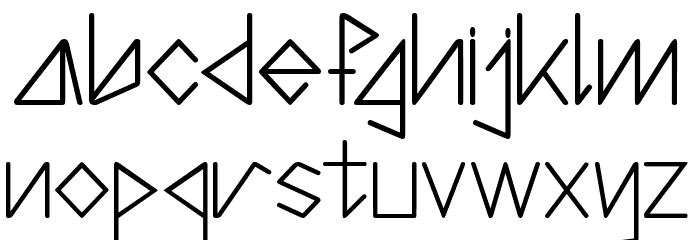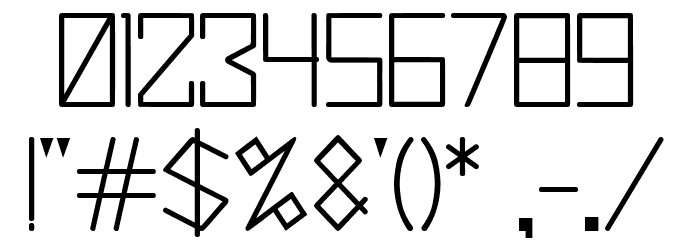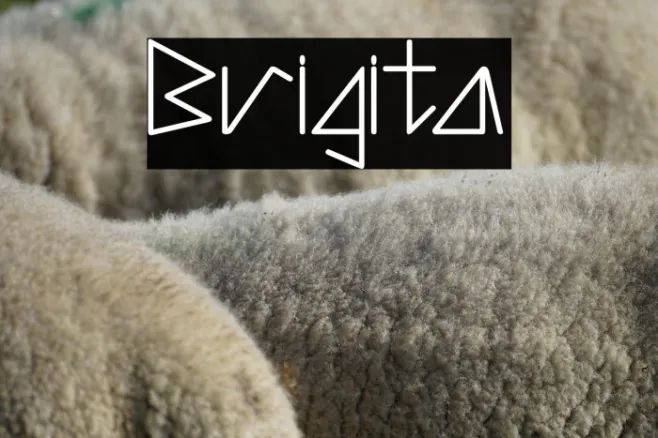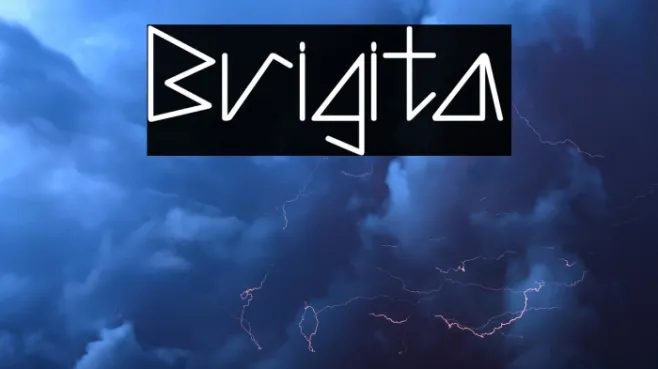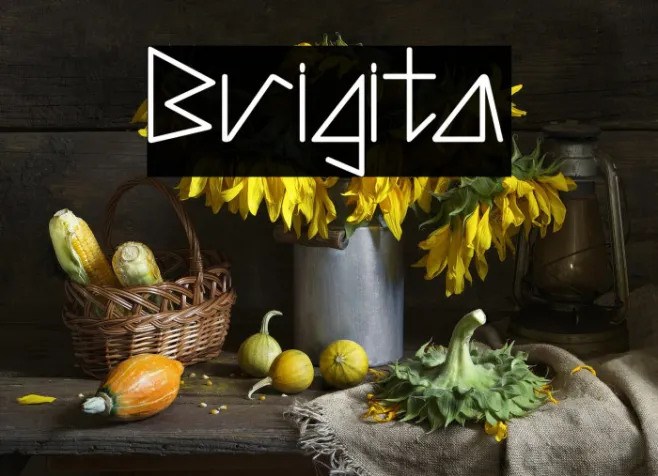
Brigita Font
This font features a unique geometric design with sharp angles and clean lines, creating a modern and edgy appearance. The uppercase and lowercase letters maintain a consistent style, with angular forms that give a futuristic feel. The numerals and special characters are crafted to match the overall aesthetic, ensuring uniformity across all glyphs. The font's distinct look makes it ideal for projects that require a bold and unconventional typeface. Its linear and angular characteristics make it stand out, providing a striking visual impact.
A geometric, angular font with a modern and edgy style.
- Font: Brigita
- Proposed Projects: Ideal for branding, posters, album covers, and digital media that require a futuristic and bold typeface.